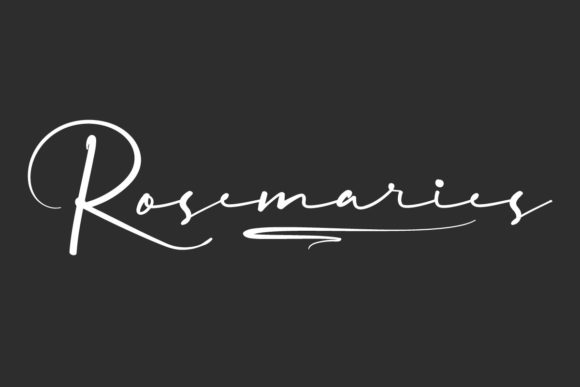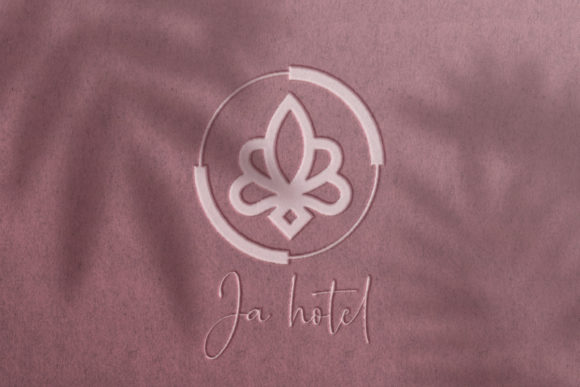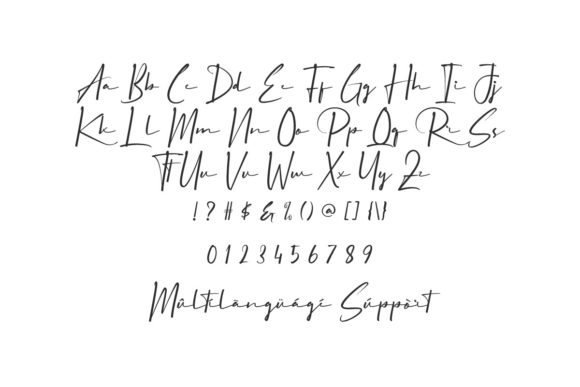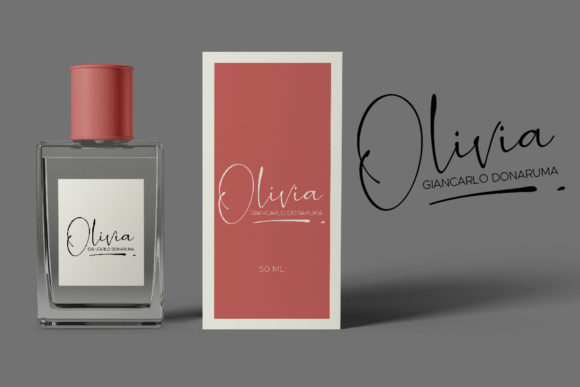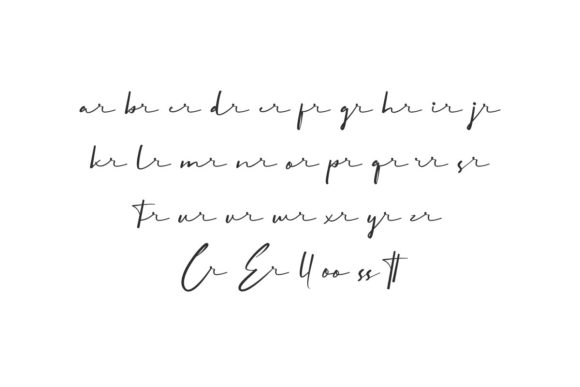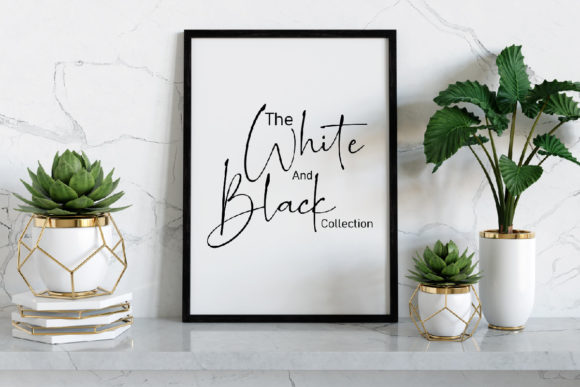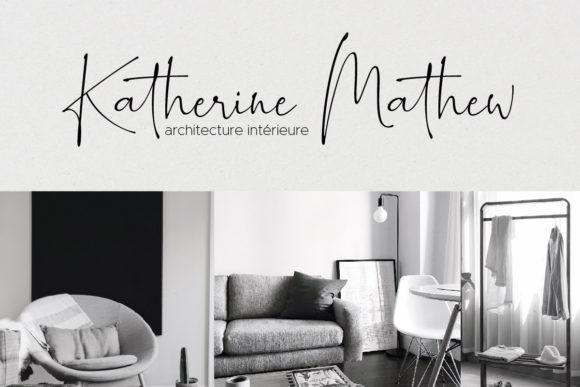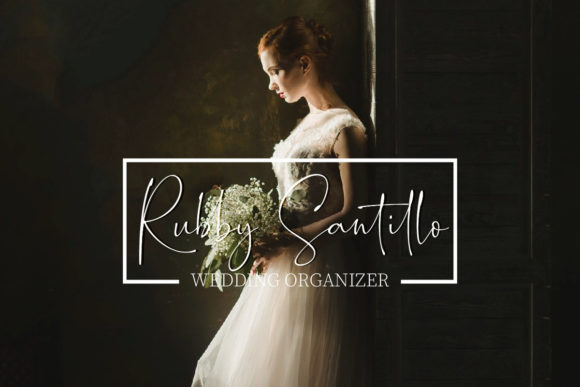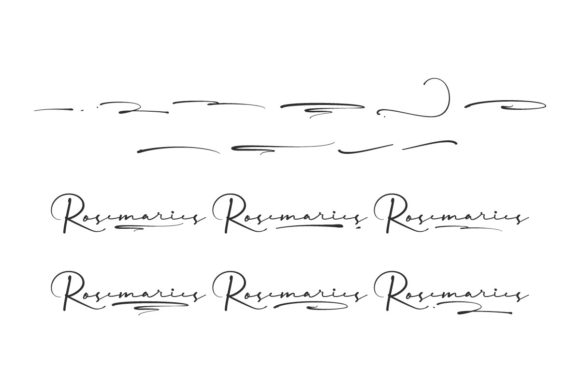
Rosemaries Font
About Rosemaries Font
Rosedaries font is an exemplary representation of a script font, encapsulating sophistication and finesse within its elegant strokes. Crafted with precision and attention to detail, this typeface stands as a testament to the timeless allure of script typography.
At the forefront of design trends, Rosedaries font seamlessly blends traditional script elements with contemporary aesthetics. Its graceful curves and fluid lines exude a sense of refinement, making it a versatile choice for a myriad of design projects.
With Rosedaries font, every character is meticulously crafted to perfection, resulting in a harmonious and balanced composition. From intricate loops to delicate flourishes, each letter radiates charm and elegance, creating a captivating visual experience.
In terms of versatility, Rosedaries font knows no bounds. Whether used for branding, editorial design, stationery, or invitations, it adds a touch of sophistication to any application. Its ability to convey professionalism and style makes it a preferred choice among designers seeking to make a lasting impression.
Furthermore, Rosedaries font is designed with accessibility in mind. Its PUA encoding grants easy access to a wide range of glyphs and swashes, allowing designers to customize their creations with ease. This flexibility empowers designers to unleash their creativity and bring their artistic visions to life.
In addition to its aesthetic appeal, Rosedaries font offers exceptional readability, ensuring that your message is conveyed with clarity and precision. Its well-defined letterforms and smooth transitions enhance legibility, making it suitable for both print and digital media.
Whether used for headline text or body copy, Rosedaries font captivates attention and commands admiration. Its timeless elegance and refined craftsmanship elevate any design project, making it a valuable asset in the designer’s toolkit.
In summary, Rosedaries font is more than just a script typeface – it’s a symbol of sophistication and style. With its impeccable design, versatility, and accessibility, it transcends the boundaries of traditional typography, setting a new standard for elegance and refinement in the digital age. Let Rosedaries font be the cornerstone of your next design endeavor, and watch as it transforms your vision into a masterpiece of typographic artistry.